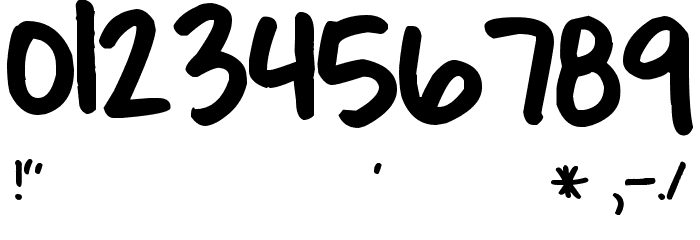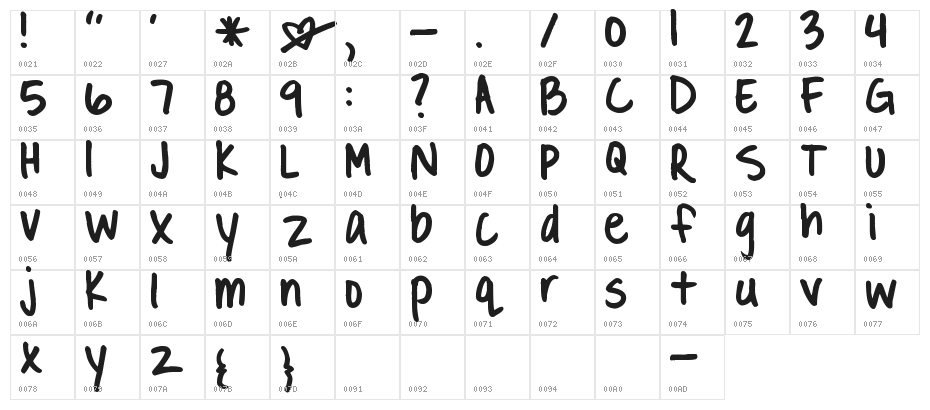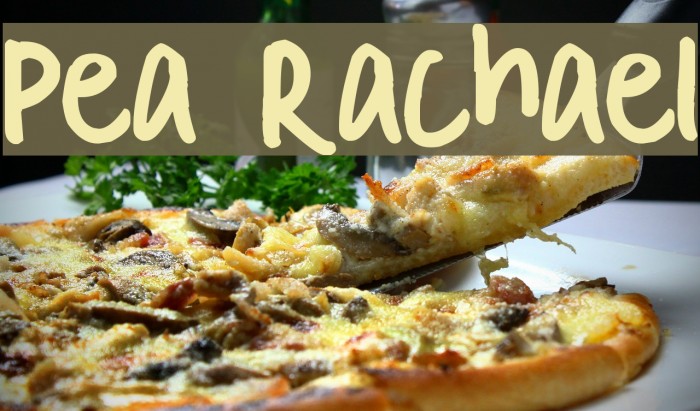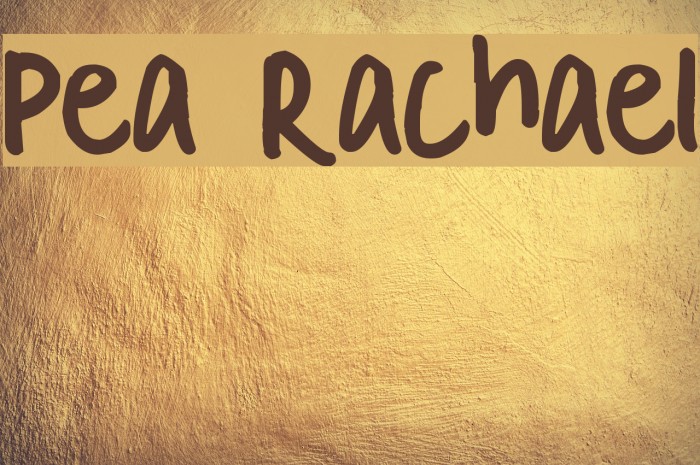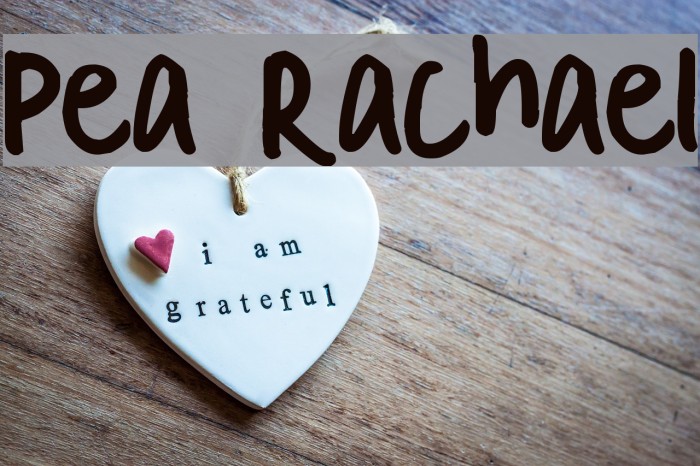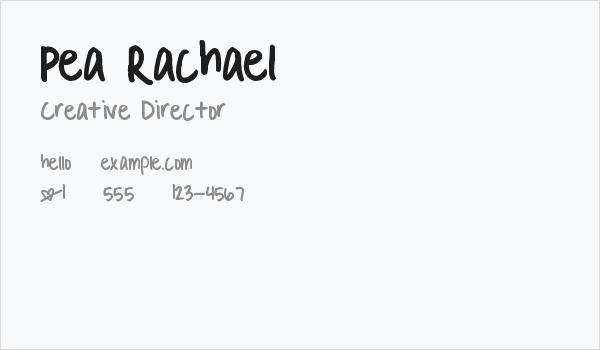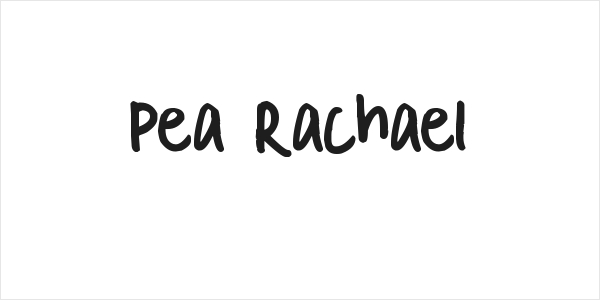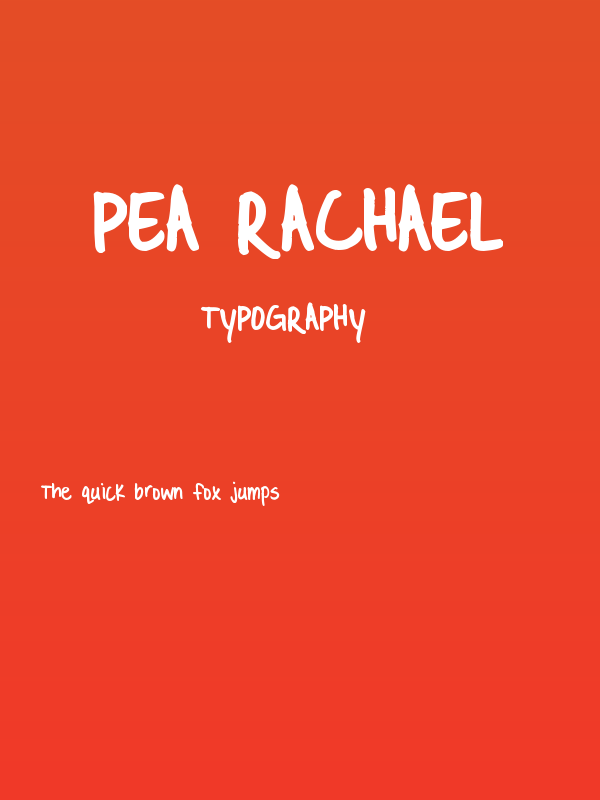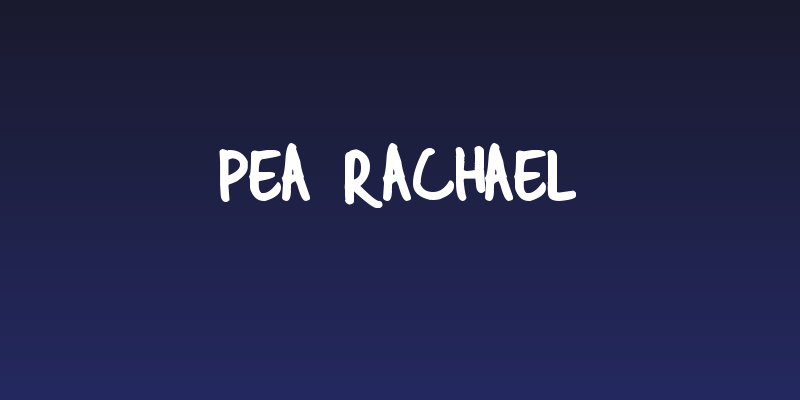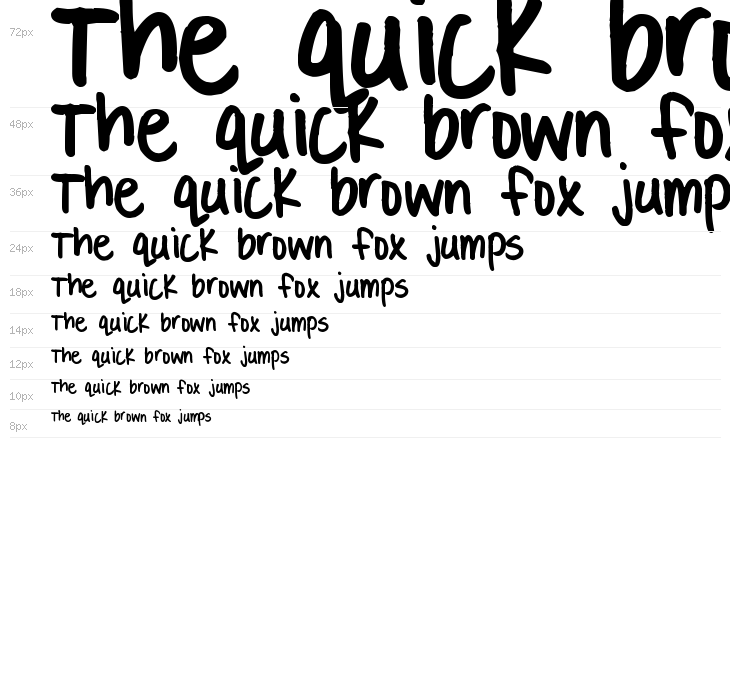
Pea Rachael Font
Pea Rachael Description
This font exudes a playful and casual handwritten style, characterized by its bold and slightly uneven strokes that mimic the natural flow of handwriting. The letters are rounded and have a friendly, approachable appearance, making it ideal for informal and creative projects. Its organic and spontaneous feel is enhanced by the slight variations in letter height and width, adding a personal touch to the text. The numerals and special characters maintain the same lively and informal style, ensuring consistency across different types of content.